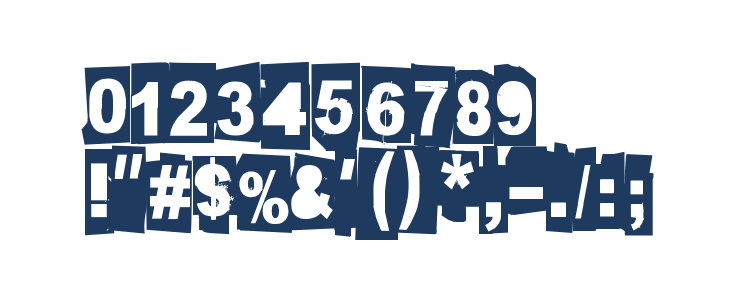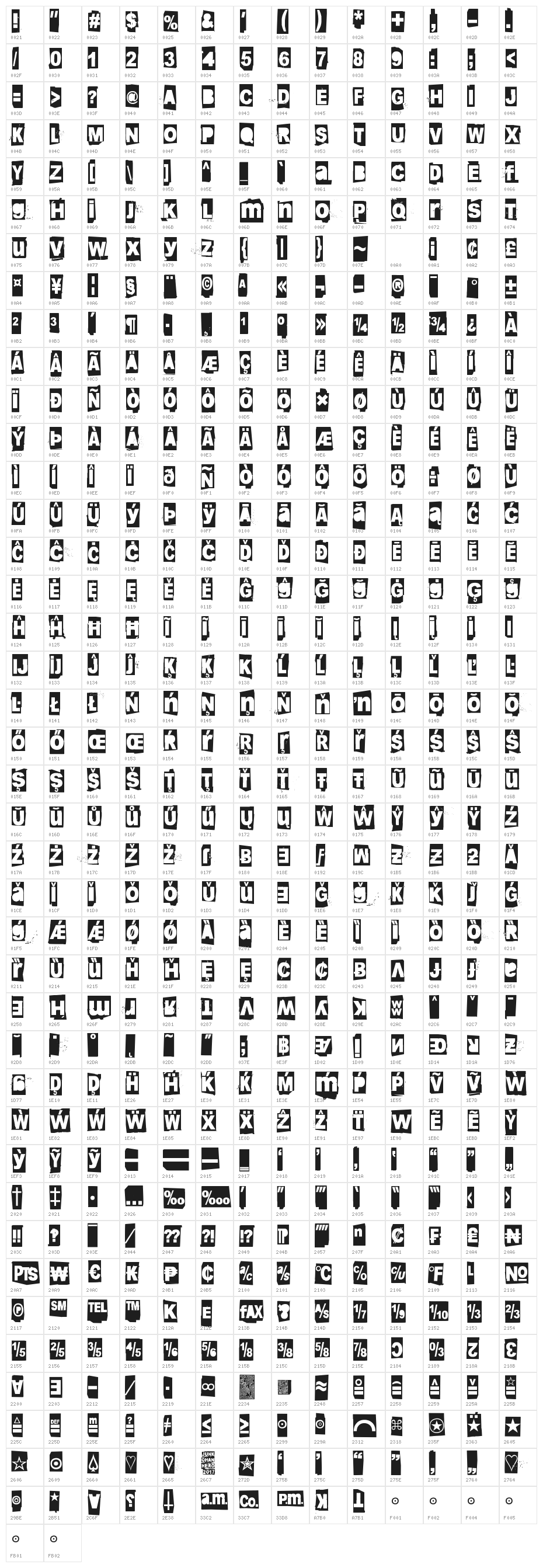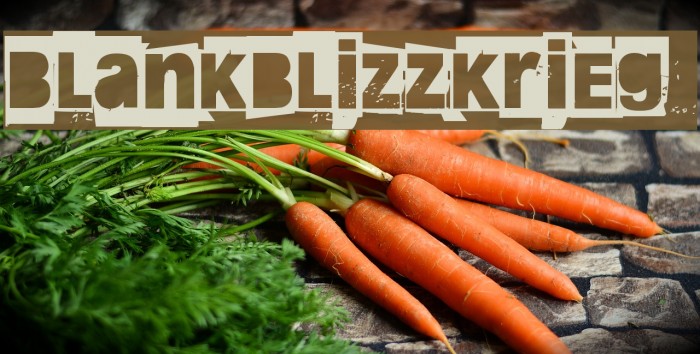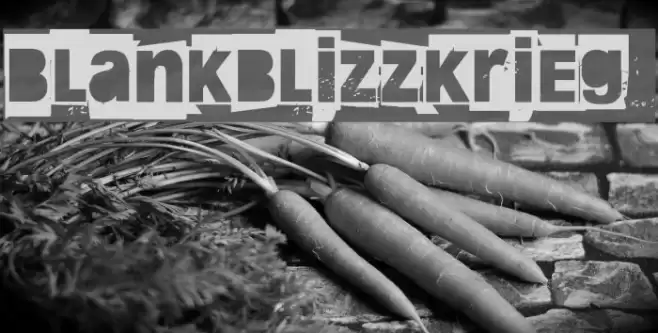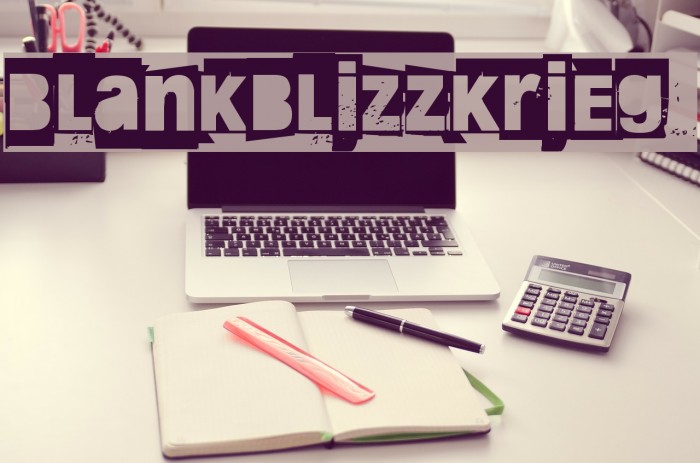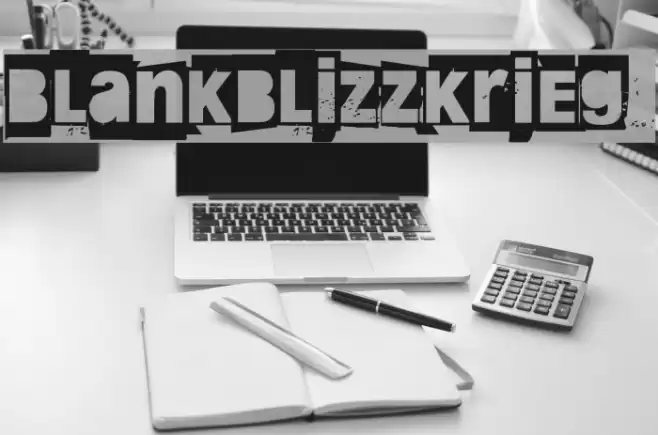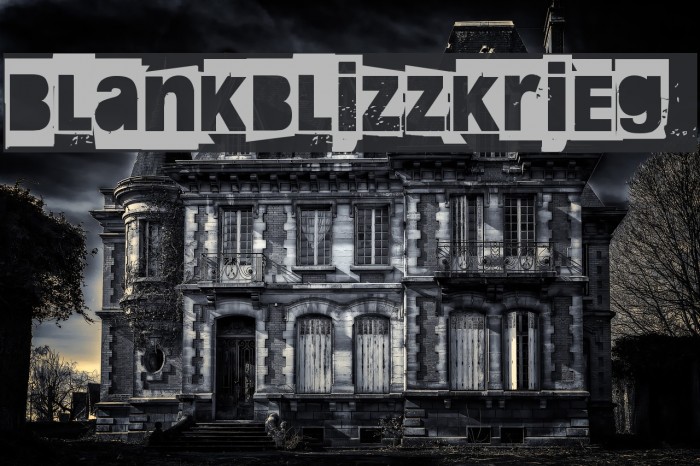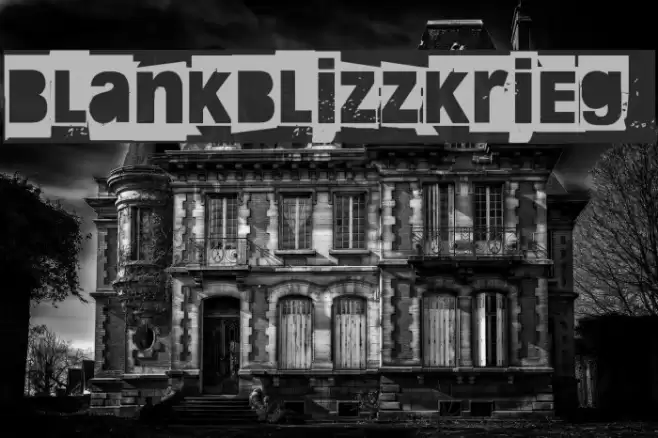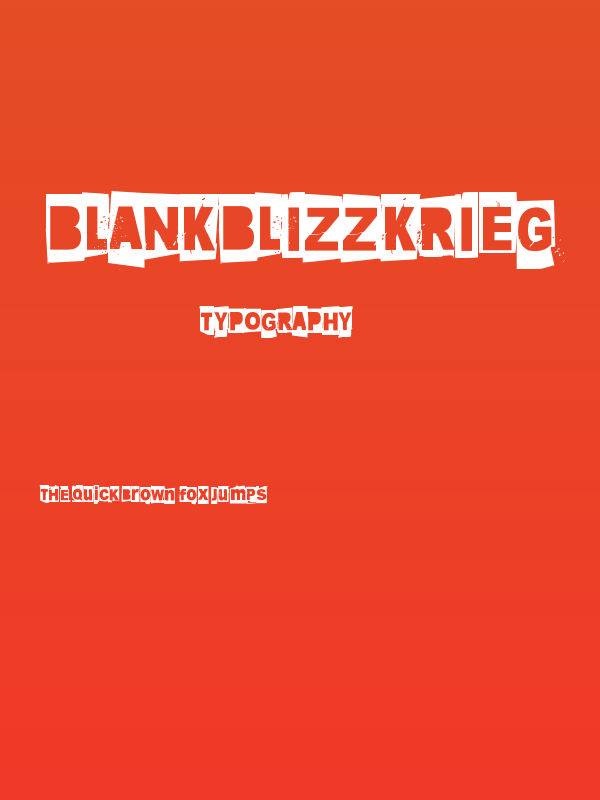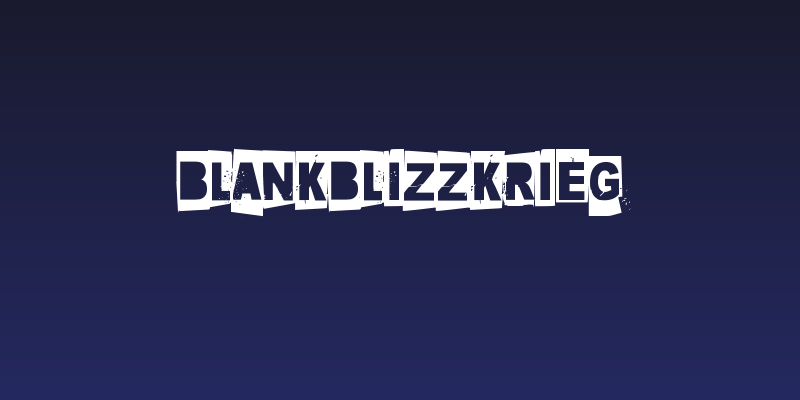
Blankblizzkrieg Font
Blankblizzkrieg Description
This font features a bold, distressed style with a grunge aesthetic. Each character appears as if it has been cut from a rough, textured surface, giving it a unique, edgy look. The uppercase and lowercase letters maintain a consistent height, while the numbers and special characters follow the same rugged design. The font's irregular edges and distressed marks create a sense of movement and energy, making it ideal for projects that require a bold statement. Its distinctive style is reminiscent of urban street art or punk rock album covers, adding a rebellious flair to any design.
| Overall Style | Grunge, Urban, Edgy |
| Proposed Projects | Ideal for album covers, posters, streetwear branding, and edgy graphic designs. |